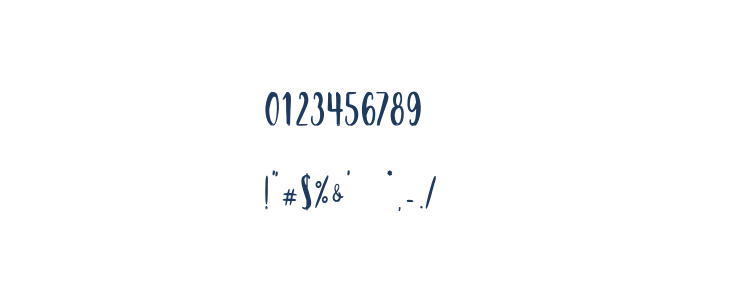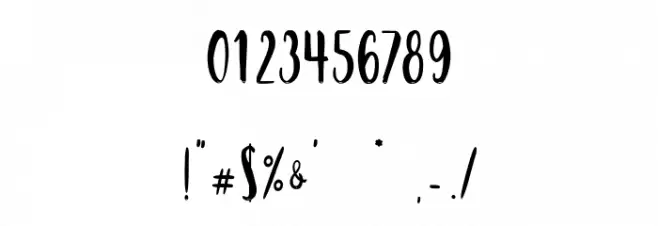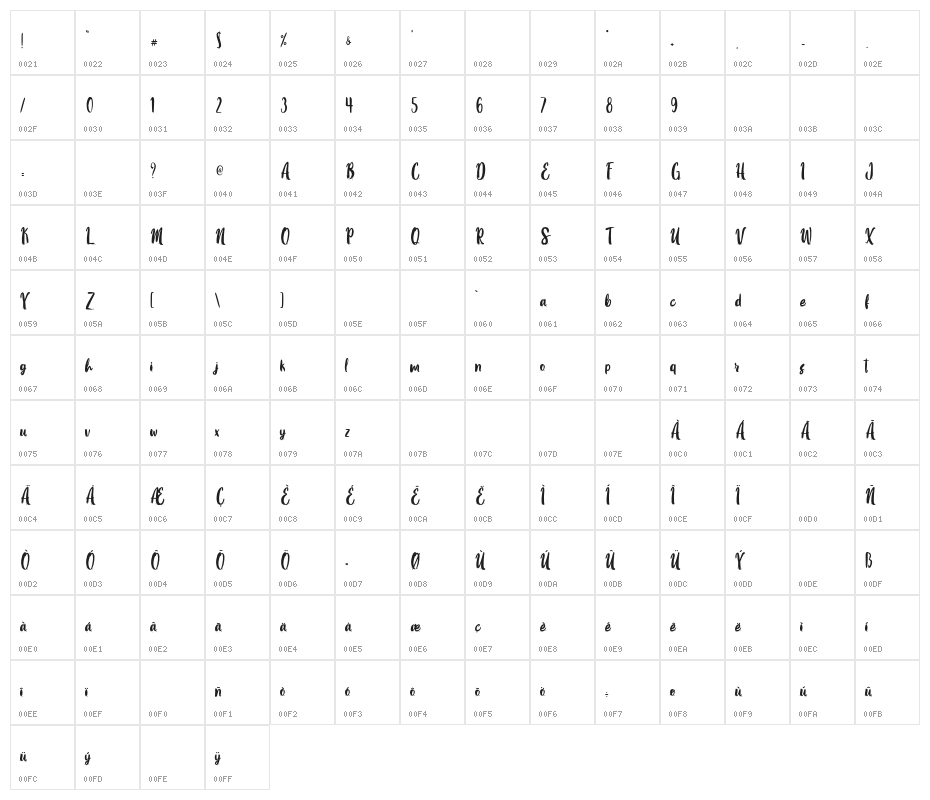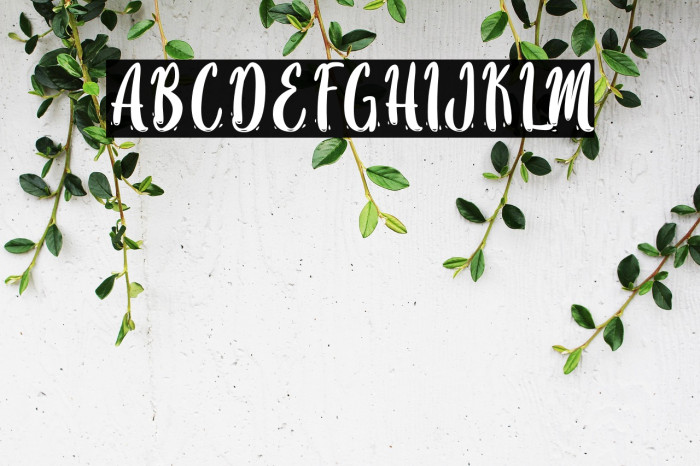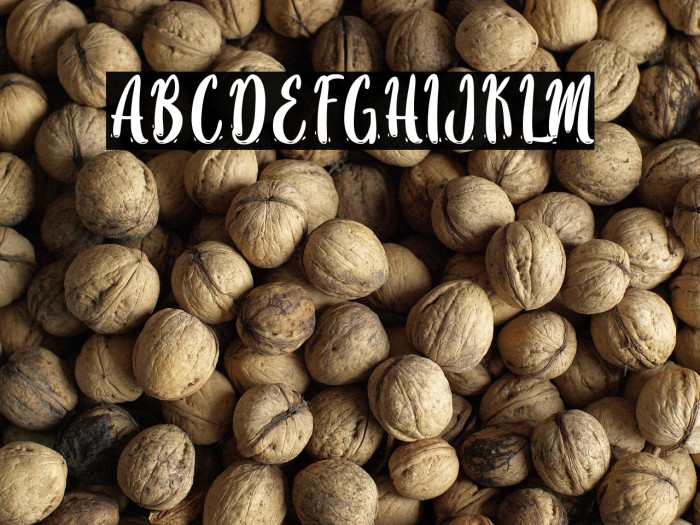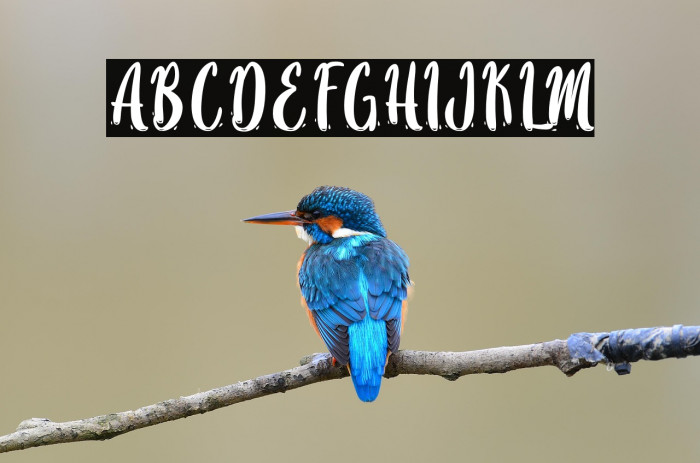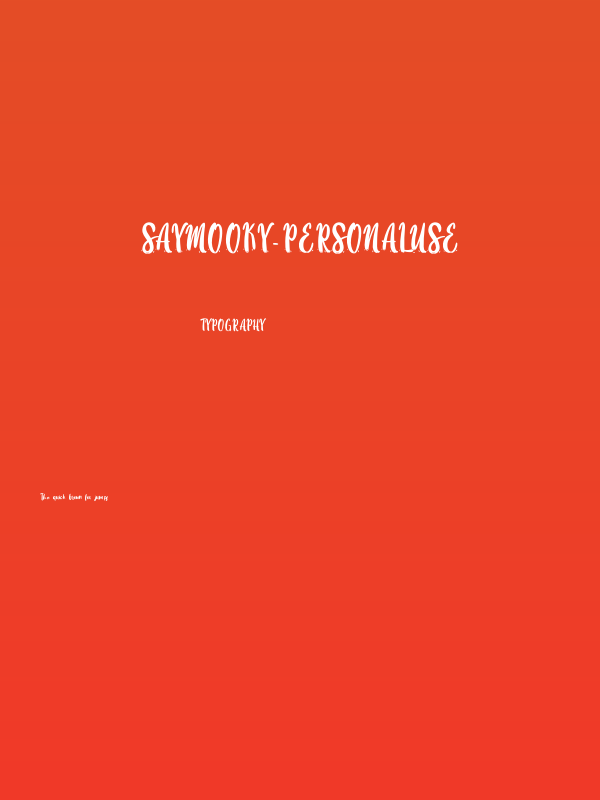
SayMooky-PersonalUse Font
SayMooky-PersonalUse Description
This font features a playful and artistic style with a brush-like texture that gives it a hand-painted appearance. The uppercase letters are bold and dynamic, with varying stroke widths that add a sense of movement and energy. The lowercase letters maintain a consistent style, complementing the uppercase with a slightly more relaxed form. The numerals are clear and legible, maintaining the same artistic flair as the letters. Special characters are included, matching the overall aesthetic with a creative touch. This font is ideal for projects that require a personal and artistic feel, such as invitations, posters, and creative branding.
A playful, brush-style font with a hand-painted look, perfect for artistic projects from Uncategorized fonts.
- Font: SayMooky-PersonalUse
- Proposed Projects: Ideal for invitations, posters, creative branding, and any project needing a personal touch.
- Use Case: Headlines, Logos, Creative projects